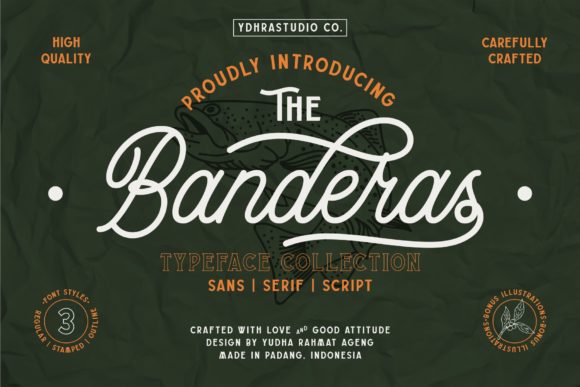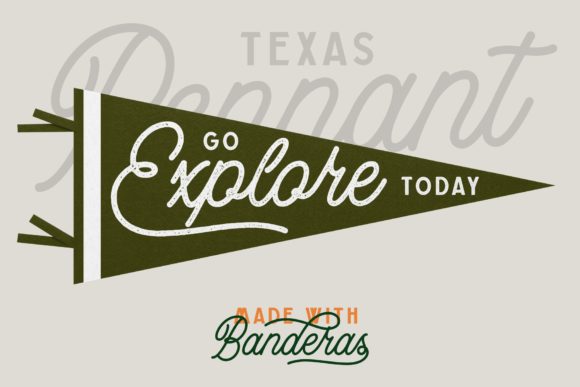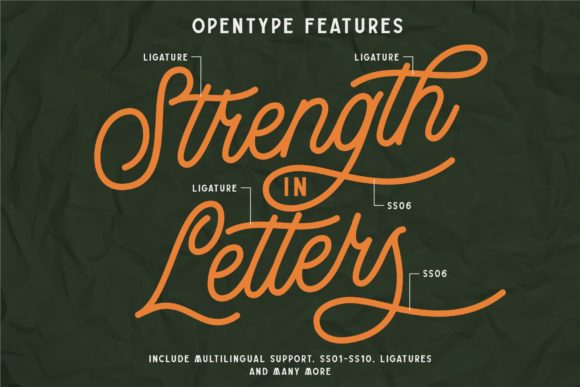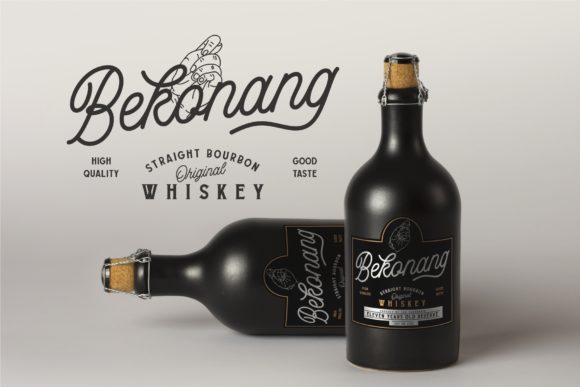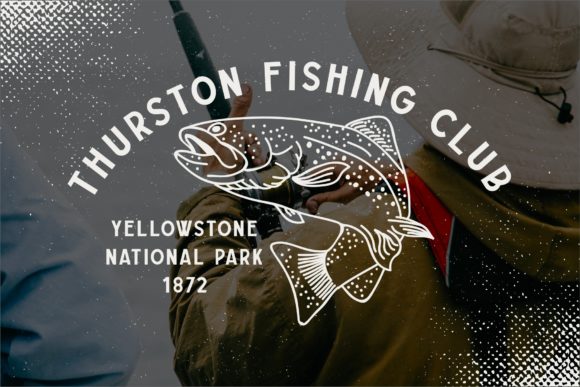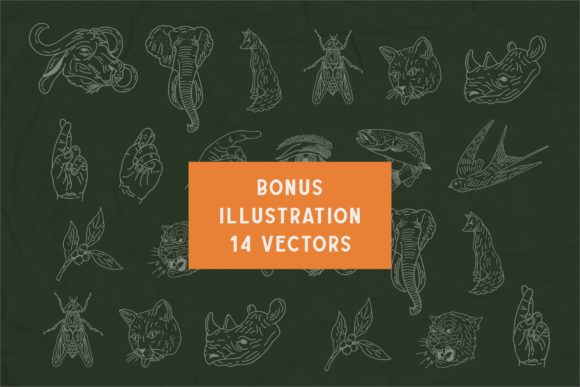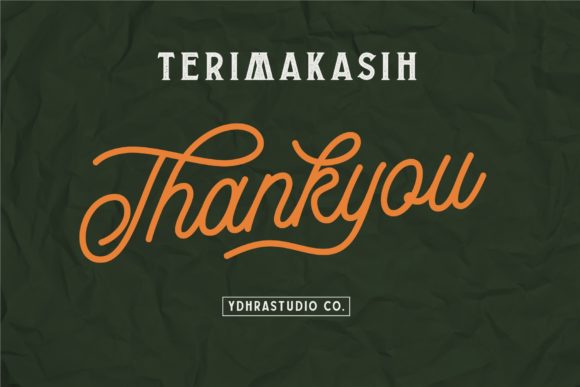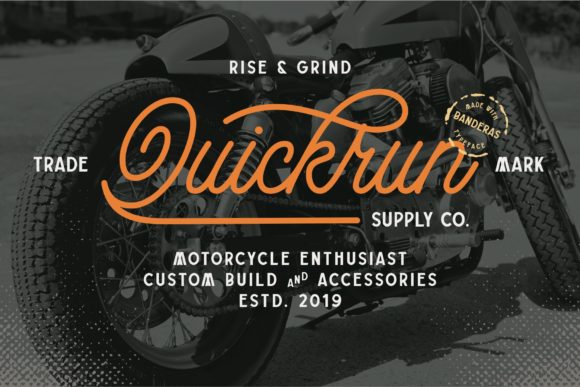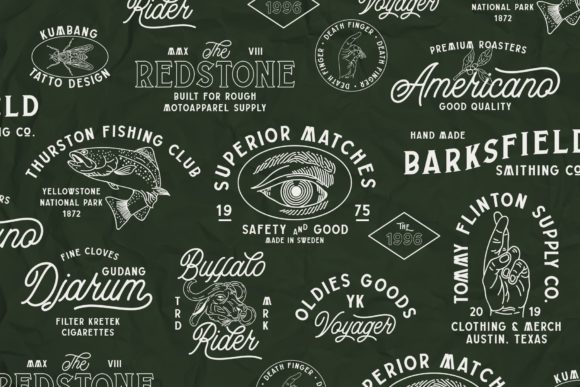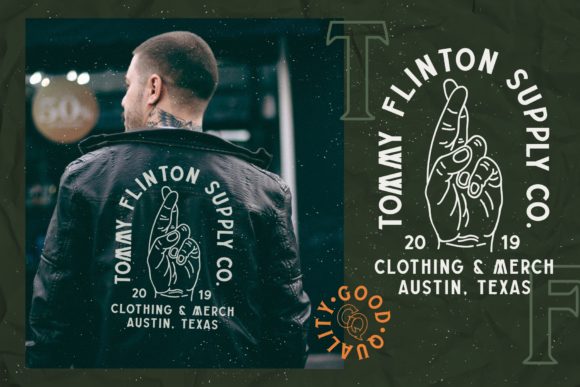
Banderas Font
About Banderas Font
Inspired by vintage hand lettering Banderas is a smooth and charming handwritten font. It will turn any design project into an eye-catcher!